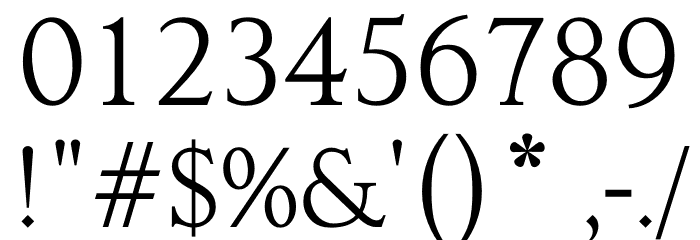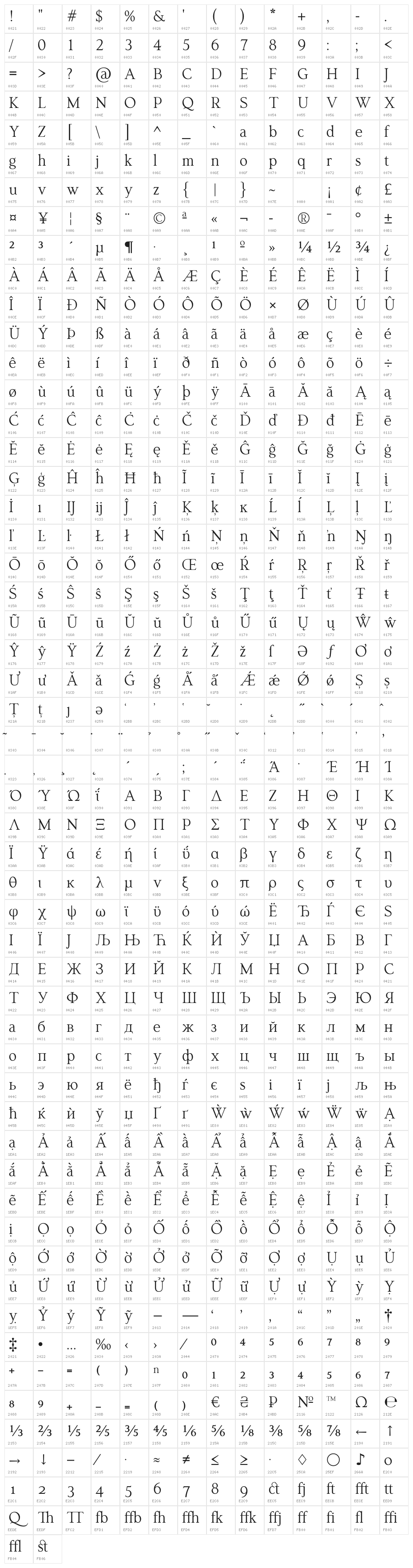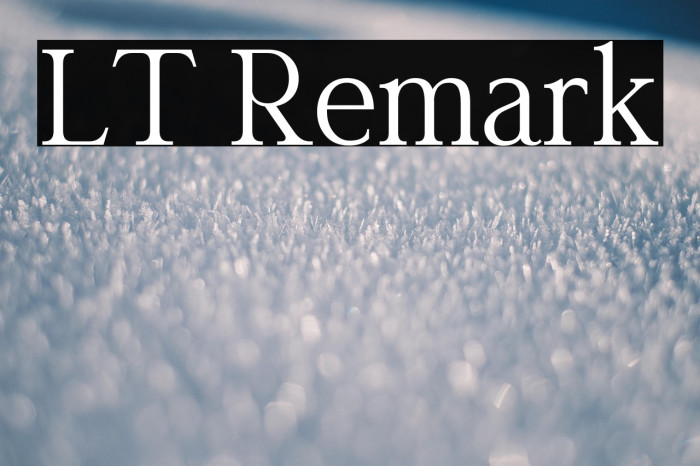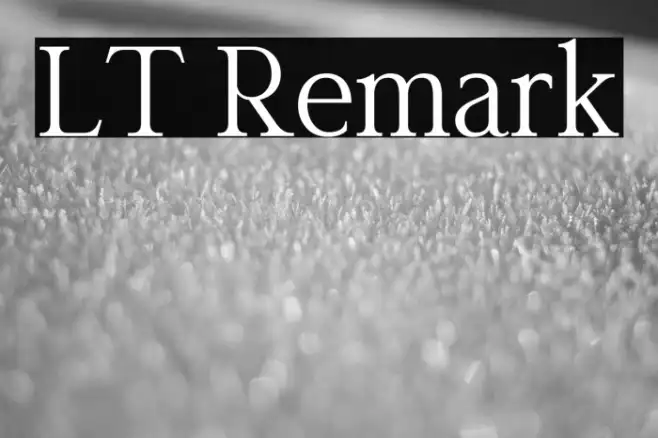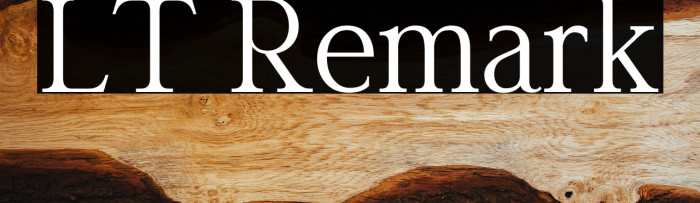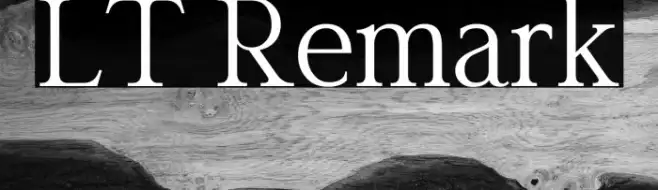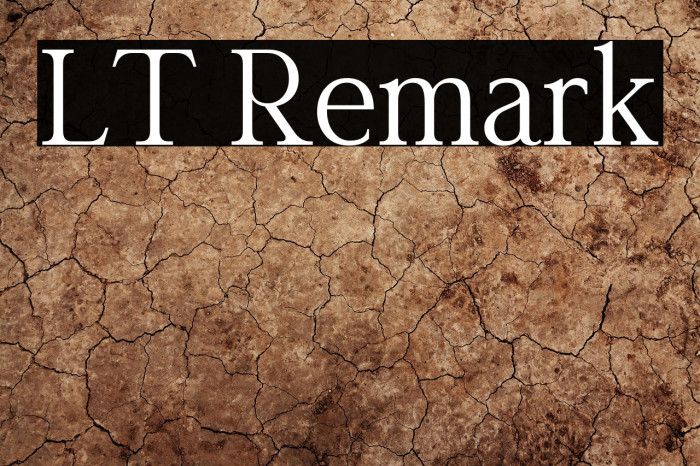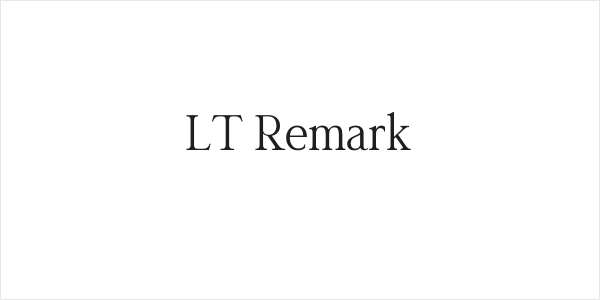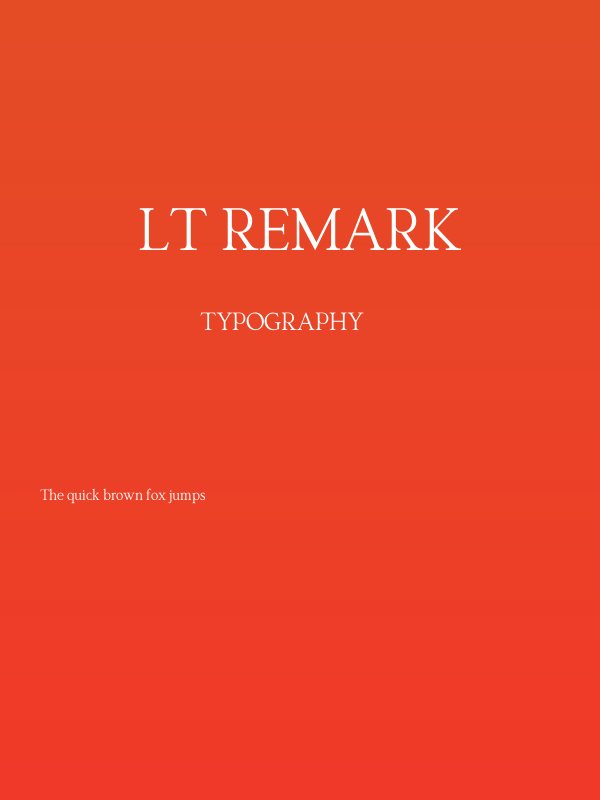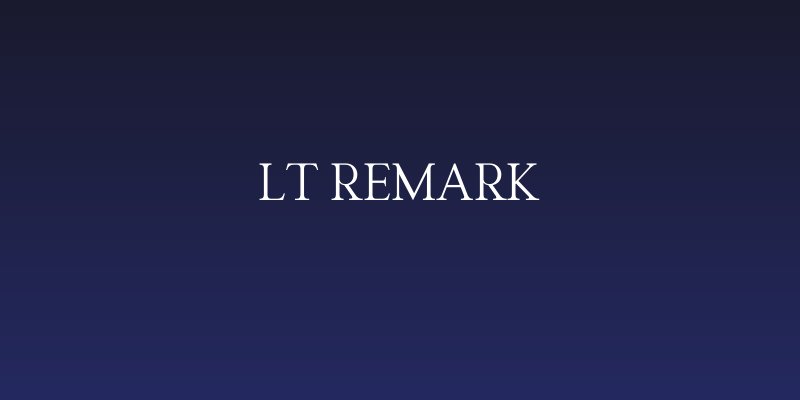
LT Remark Font
LT Remark Description
This font features a classic serif style with elegant and refined strokes. The characters exhibit a balanced proportion, with slightly elongated serifs that add a touch of sophistication. The uppercase letters are bold and commanding, while the lowercase letters maintain a graceful flow. The numerals are clear and distinct, ensuring readability. Special characters are designed with the same attention to detail, making this font versatile for various applications. Its timeless appeal makes it suitable for both traditional and modern designs.
| Proposed Projects | Ideal for editorial design, book covers, formal invitations, and branding projects that require a touch of elegance. |